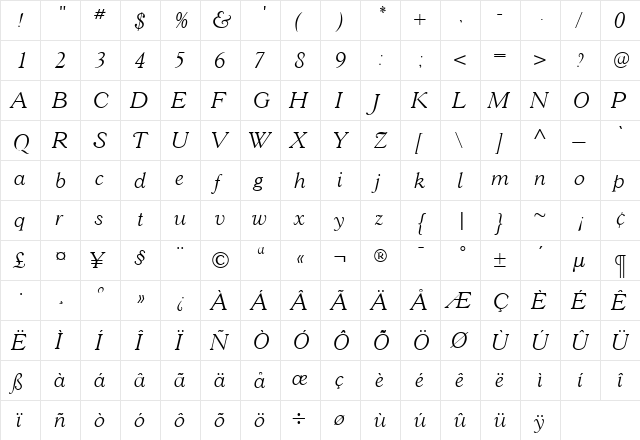
GoudY38LightItalic Medium
Design Context for GoudY38LightItalic Typeface
GoudY38LightItalic takes a measured approach to typography — its balanced proportions and neutral character make it a reliable workhorse for both digital and print work. The slanted form adds forward momentum and visual energy. Its slender proportions lend an understated elegance to any composition.